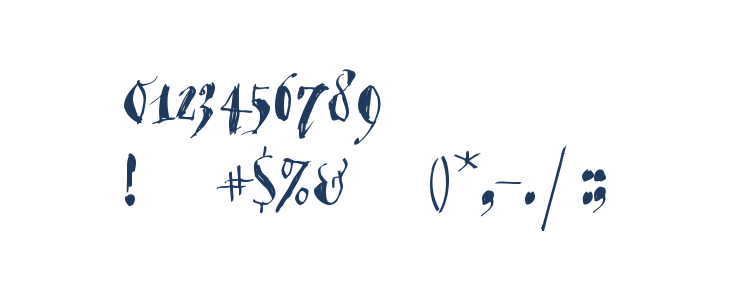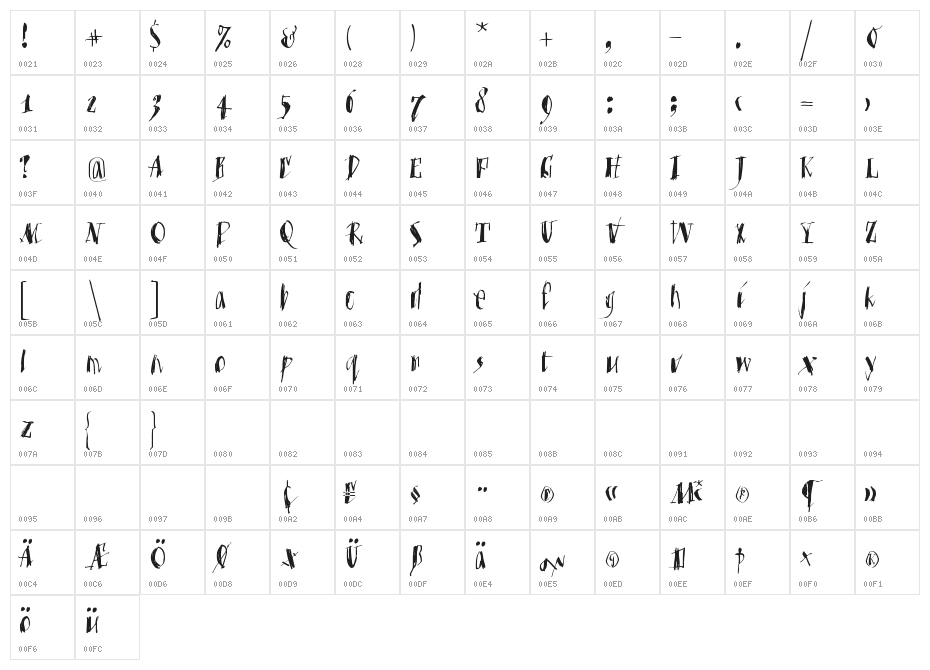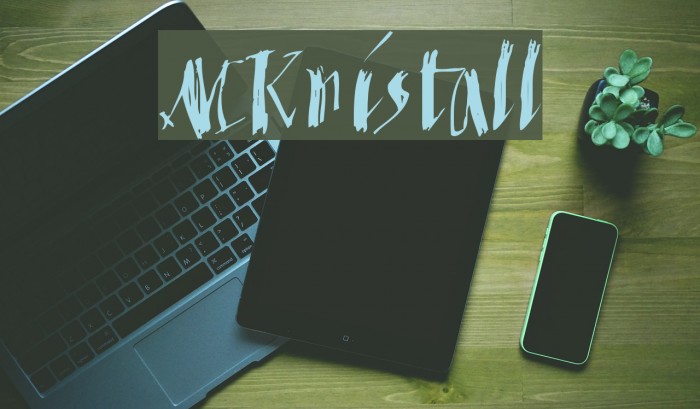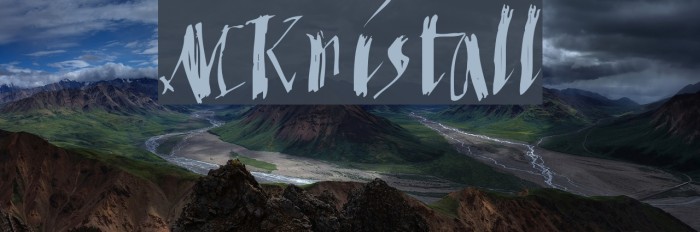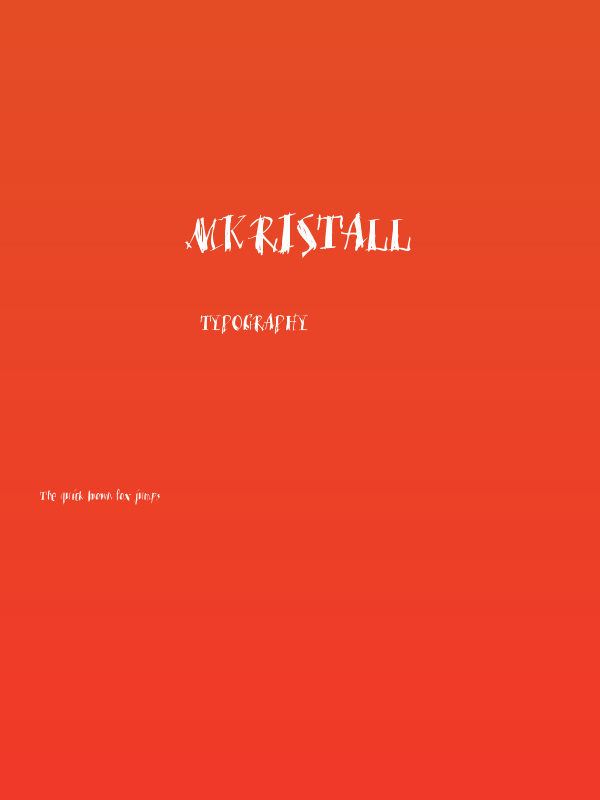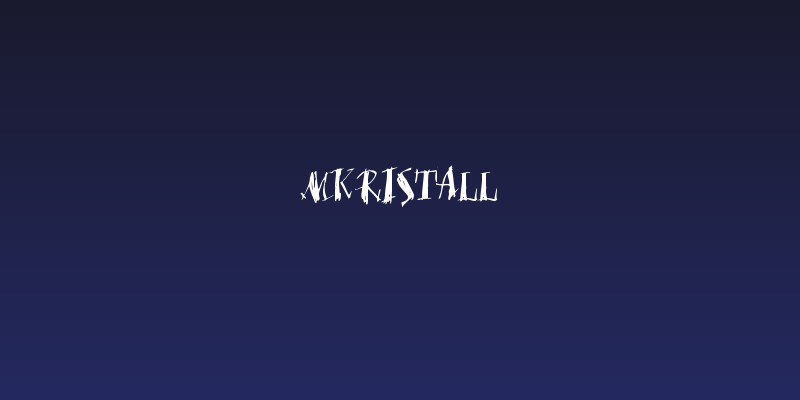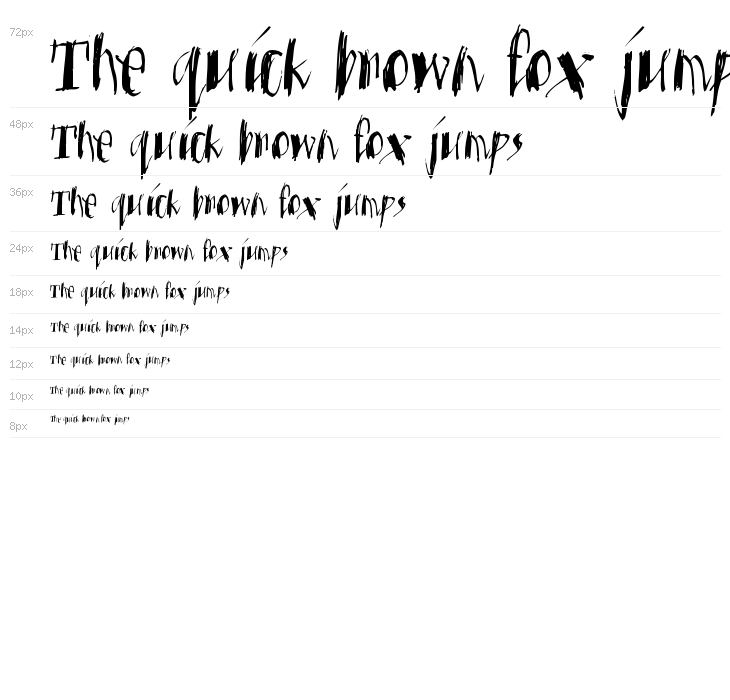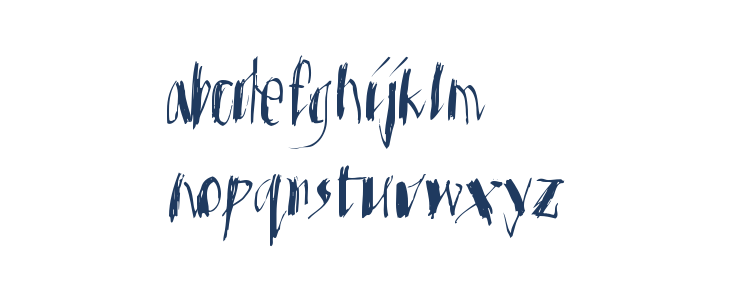
MKristall Font
MKristall Description
This font exhibits a bold, expressive style with a hand-drawn appearance, characterized by irregular strokes and a dynamic, energetic feel. The uppercase letters are sharp and angular, while the lowercase letters maintain a fluidity that complements the overall aesthetic. Numbers and special characters follow the same artistic approach, adding to the font's cohesive look. The brush-like texture and uneven lines give it a raw, artistic vibe, making it stand out in any design project.